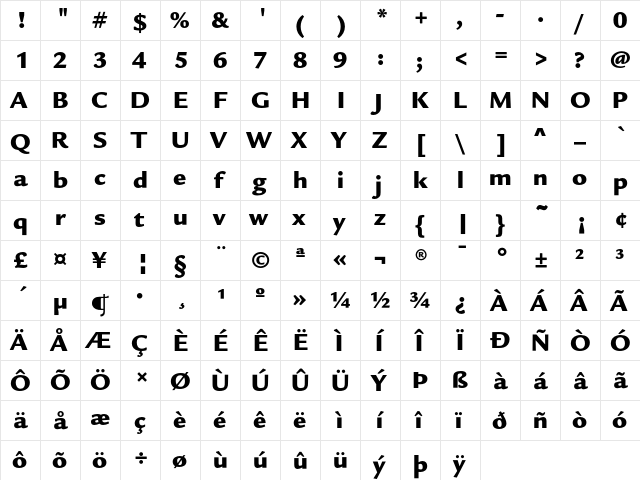
LegacySansEF Ultra
Design Context for LegacySansEF Typeface
LegacySansEF offers clean, dependable letterforms without strong stylistic allegiance, making it a practical choice for designers who need flexibility.